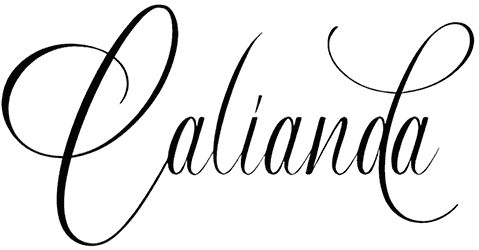
Calianda Font
With artistic outward, while keeping a friendly, romantic touch, originated from natural vividness to amaze all audience in a second. It’s not the whole story; it’s free access for download, leaving nothing more to say. You’ve got to be the luckiest designer to find this certificate font named Calianda with such a smashing design.
And take this, even though numbers are lacking in this collection, RB’s warranty you will meet pleasing feedback, be sure.